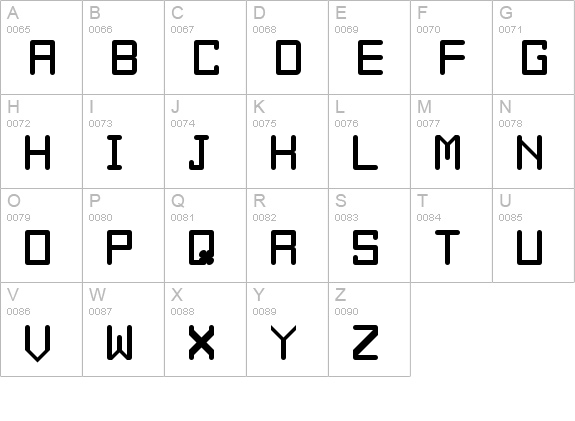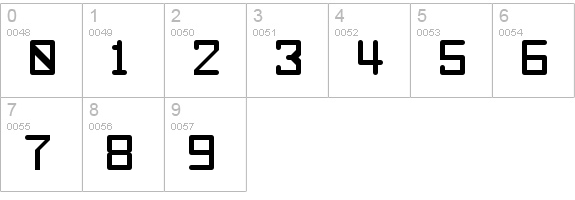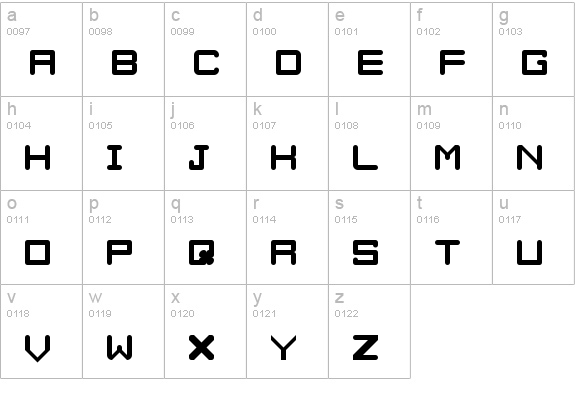
Digitrix Small Caps Regular Font Details
Digitrix Small Caps Regular is the standard, neutral variant in the Digitrix typeface family \xE2\x80\x94 well suited to general body text, paragraphs, and standard typographic work.
Digitrix Small Caps Regular is a sophisticated and versatile font that exudes elegance and refinement. Its clean lines and stylish curves make it perfect for a wide range of design projects, from professional presentations to creative branding. This font showcases a unique blend of modernity and classic design, making it suitable for both traditional and contemporary applications. The Small Caps variation of Digitrix Regular adds a touch of sophistication and uniqueness to any text. The smaller capital letters create a sense of balance and harmony, while still maintaining readability and legibility. This font is perfect for headings, subheadings, and any other text that needs to stand out in a subtle and stylish way. One of the best features of Digitrix Small Caps Regular is that it is free to download at FontsMarket.com. This means that you can enhance your design projects without breaking the bank. Whether you are a professional designer or a hobbyist, having access to high-quality fonts without any cost is a valuable asset. With Digitrix Small Caps Regular, you can effortlessly elevate your design projects to the next level. Its versatility and elegance make it a must-have font for anyone looking to make a lasting impression. Don't miss out on the opportunity to download this amazing font for free at FontsMarket.com and enhance your design capabilities today.